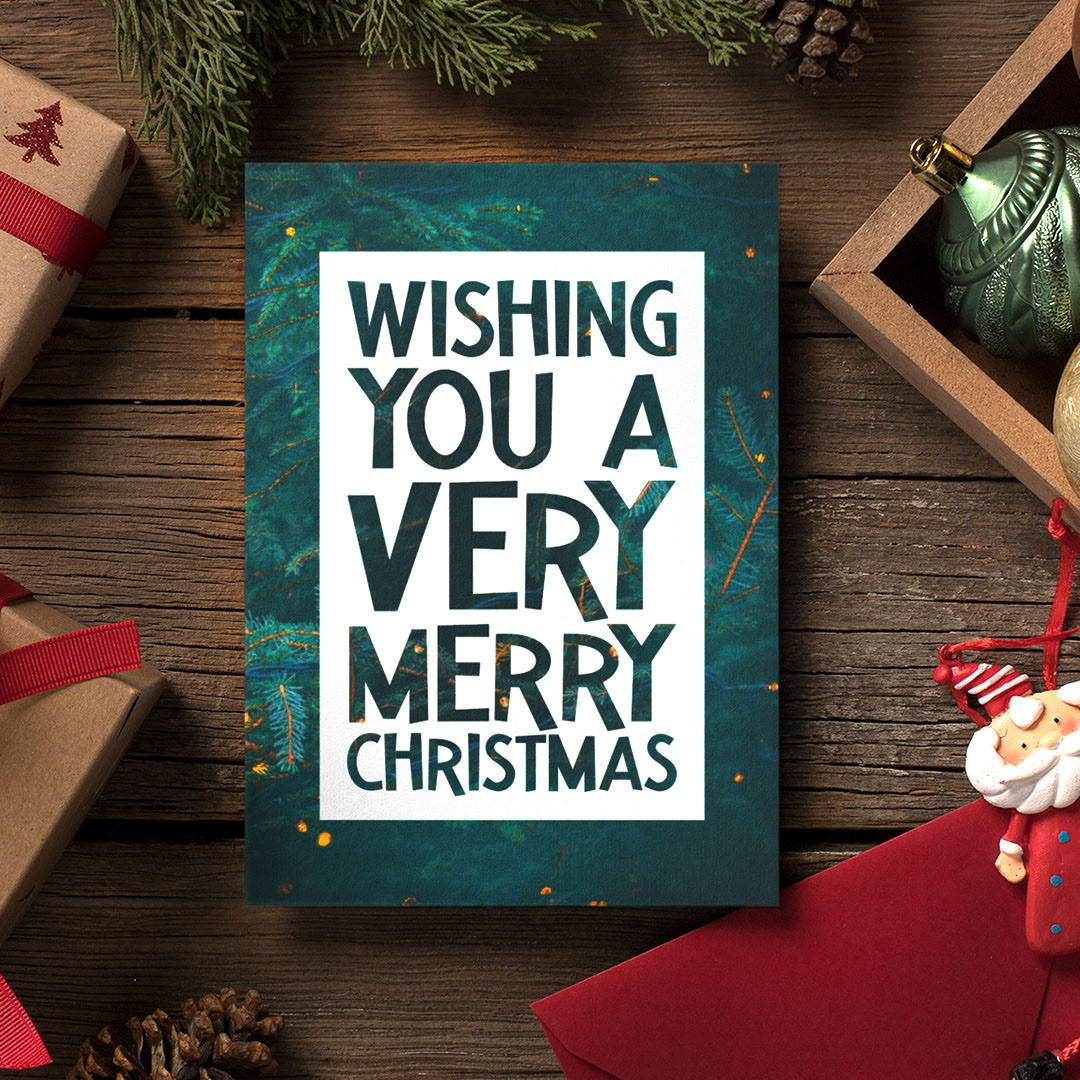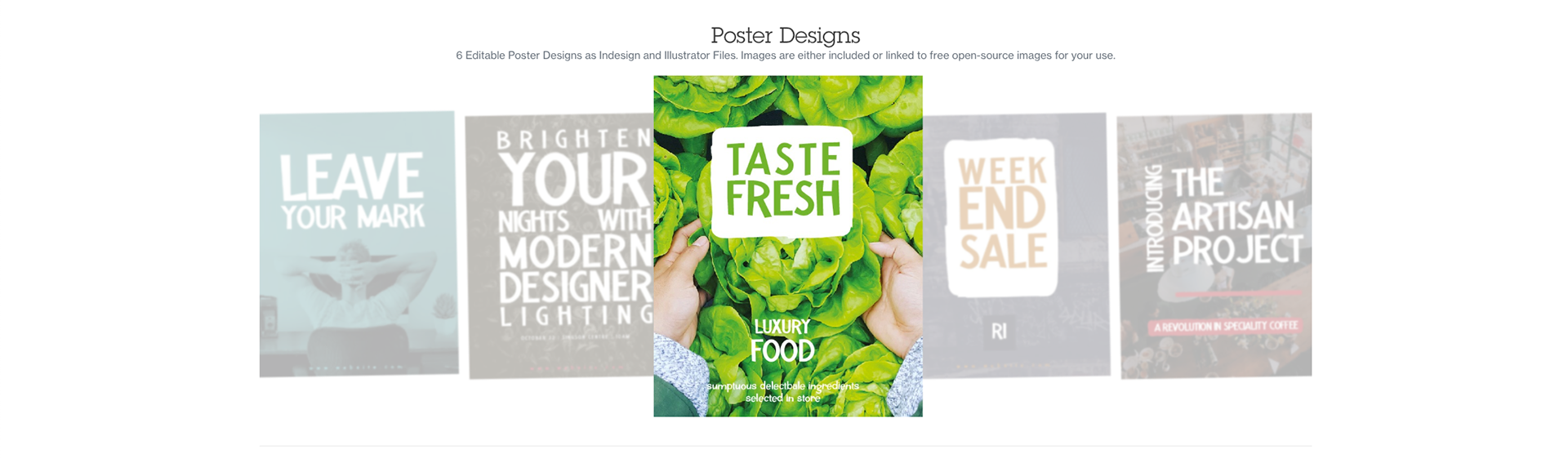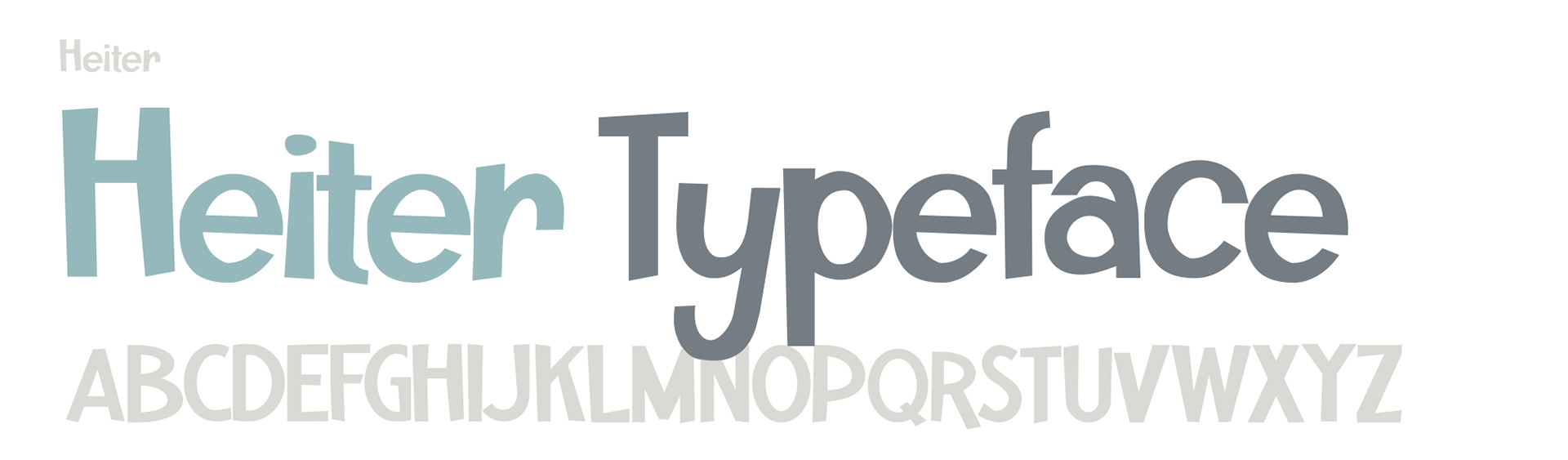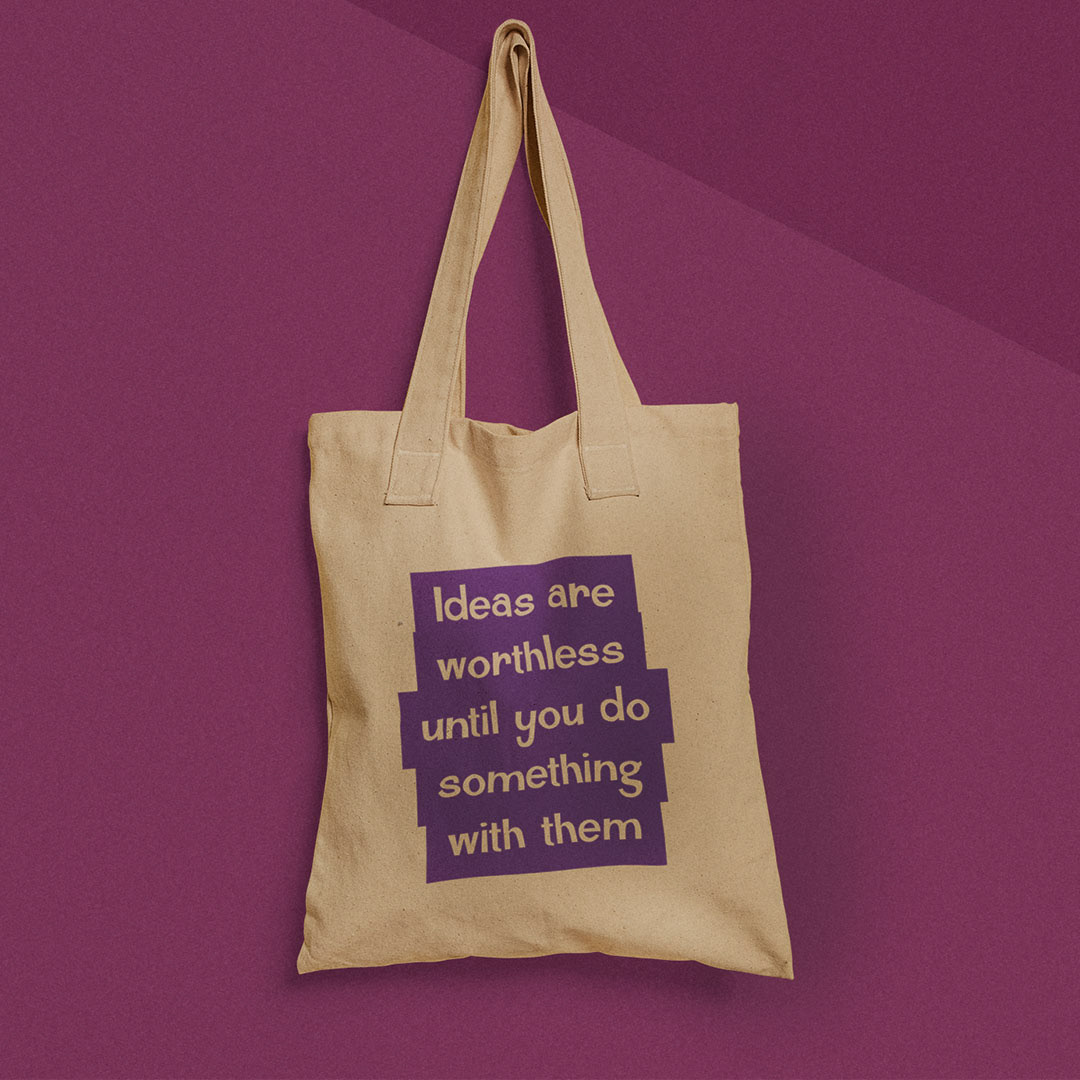
The Heiter font (meaning cheerful) is a hand drawn sans serif font with a classic 1950’s feel. Fun, jaunty and quirky in its hand drawn uneven feel, it is a versatile font with lots of uses.
Heiter is perfect for many uses, and great at large sizes on posters and in print. This pack includes the font for your use across print and web. Both upper and lowercase letters are included in this font style, with over 350 glyphs. Great for use as headings, banners, labels and for a bold statement.
To bring the Heiter font style to life, we have included in this pack is a range of editable designed templates using the font, including: